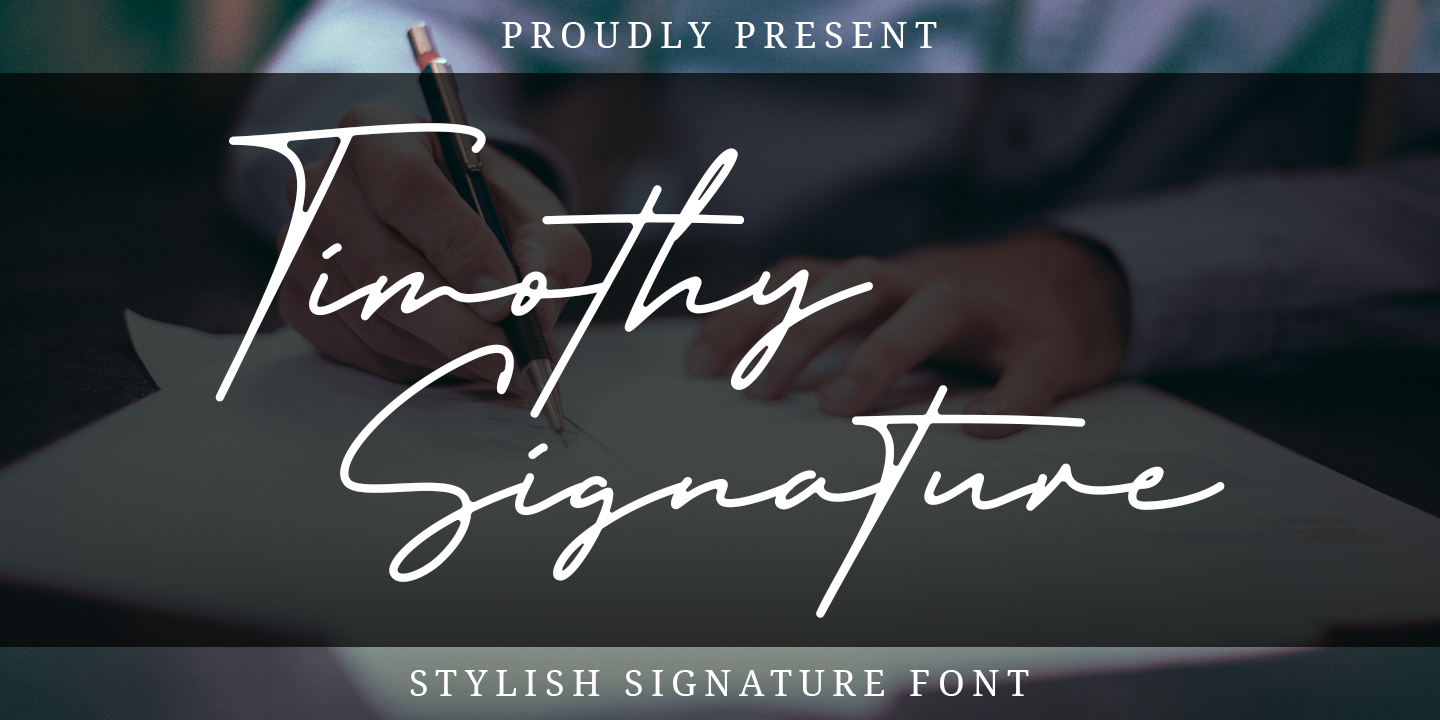
Timothy Signature Font is perfect for various applications including luxury brand signatures, high-end product endorsements, elegant wedding invitations, personal branding logos, exclusive certificate designs, upscale restaurant menus, boutique hotel signage, premium packaging labels, sophisticated business cards, and artisan product branding.
What makes Timothy Signature Font so exciting is its authentic replication of sophisticated handwritten elegance with personal flair. This distinguished typeface features flowing, script-like letterforms with natural ink variations and elegant flourishes that capture the intimacy and prestige of a personal signature from a refined individual. The font's authentic character and handcrafted aesthetic make it ideal for brands that want to convey personal touch, exclusivity, and artisanal quality to audiences who appreciate bespoke craftsmanship and individualized experiences.
Timothy Signature Font family includes multiple weights and styles: Light, Regular, Bold, Flourish, Condensed, Extended, Decorative, and gracefully flowing Italic variants. Each family member maintains the font's signature authenticity while offering different levels of visual impact and stylistic flexibility for diverse luxury and personal branding applications.
The Timothy Signature Font Free Download offers designers access to a handcrafted typeface that excels in luxury and personal branding markets. Whether you're creating exclusive brand identities, designing premium marketing materials, or developing personalized digital experiences, this font delivers the authentic aesthetic needed to establish trust and intimacy with discerning consumers. Its handwritten styling and personal essence make it particularly effective for artisan products, luxury services, and bespoke businesses.
Typography connoisseurs will appreciate the natural flow and authentic handwriting characteristics in Timothy Signature Font's design. The font features organically flowing letterforms with realistic ink variations, carefully crafted connections, and perfectly balanced proportions that ensure excellent readability while maintaining its personal character. From intimate correspondence to prestigious brand signatures, this typeface maintains its authenticity and elegant appeal across all design contexts.
For luxury web designers, Timothy Signature Font provides outstanding performance in premium digital environments and exclusive online experiences. The font's technical specifications are optimized for high-resolution displays while preserving the natural, handwritten edges that define its authentic character. Its versatility makes it suitable for both static luxury content and interactive personalized experiences.
Creative professionals working in luxury goods, artisan crafts, personal services, and exclusive brands will find Timothy Signature Font to be an indispensable tool for projects requiring authentic visual communication. The font's ability to convey craftsmanship, exclusivity, and personal attention makes it invaluable for brands targeting luxury-conscious demographics.